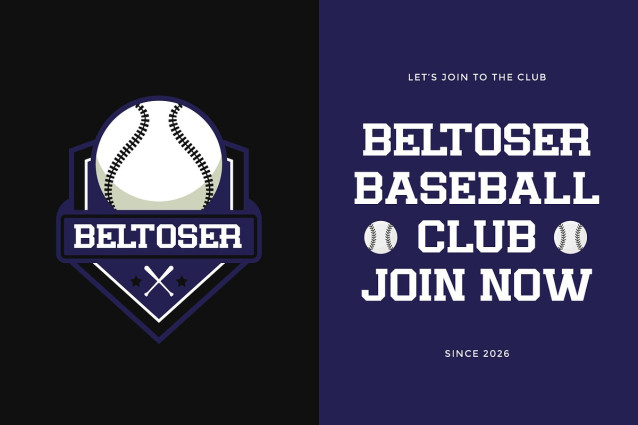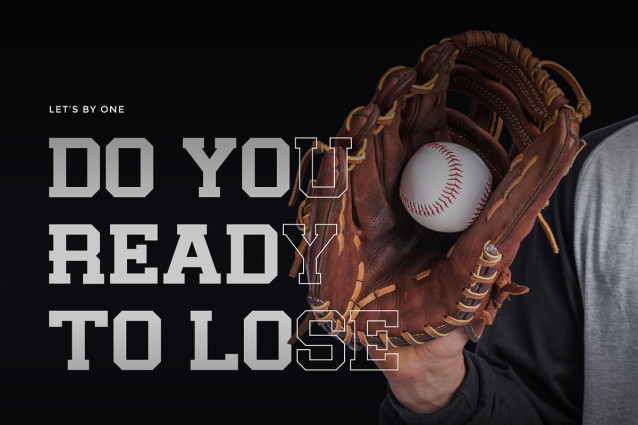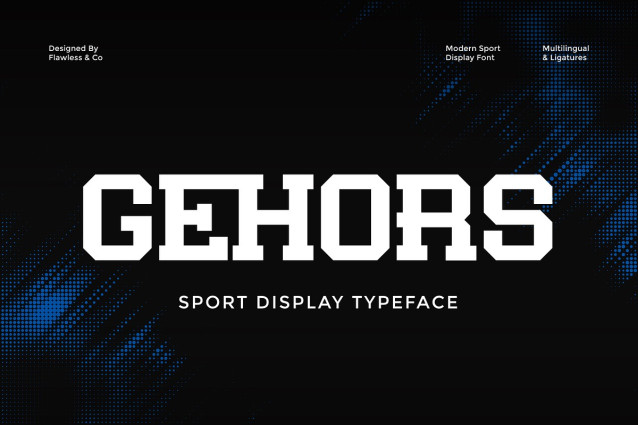
Gehors Font
Gehors Font is a modern sport display typeface built to express strength, speed, precision, and competitive energy. Featuring sharp angles, bold structure, tight spacing, and a forward-moving structure, Gehors creates a sense of motion that feels strong and aggressive. Its sporty character is designed to stand out in bold headlines while maintaining clarity and impact. Whether you’re designing for teams, events, or athletic brands, Gehors delivers a clean yet powerful visual identity inspired by performance and energy.